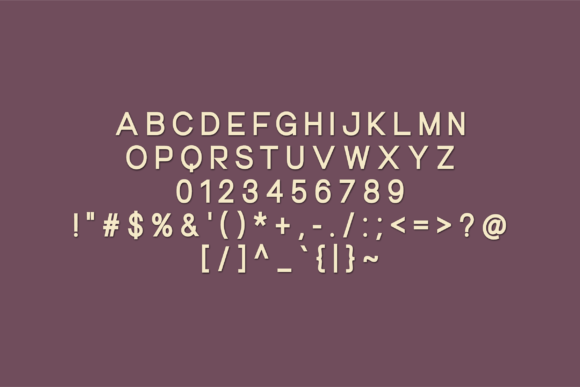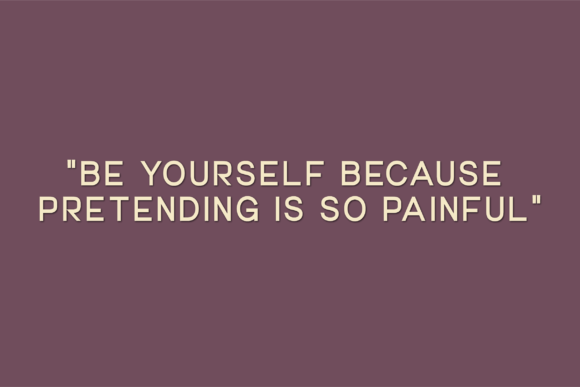
Introduction to Bronce Font
Bronce is officially a new favorite of mine – this all caps sans serif is so versatile and looks great in just about any context.
With smooth and clean lines, and just a touch of contrast, Versailles works beautifully for logos, branding, and web headings .
Key Features of Bronce Font
Why Choose Bronce Font?